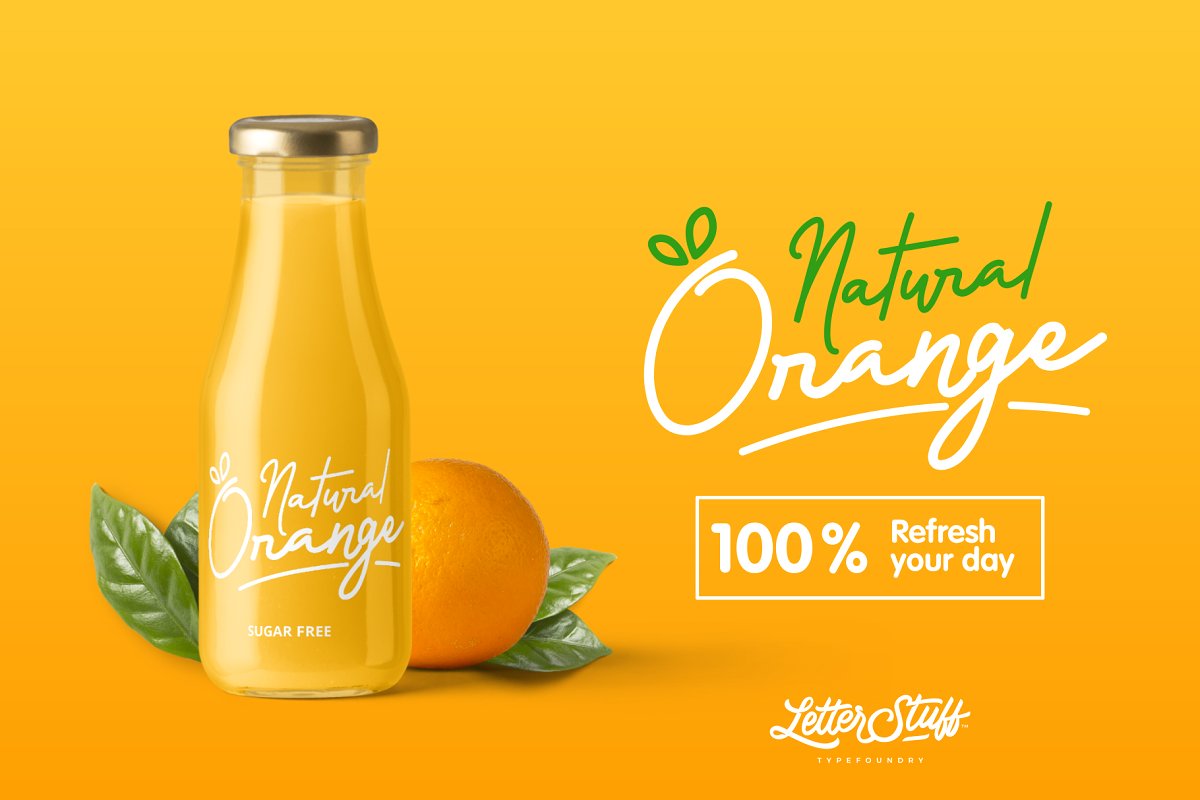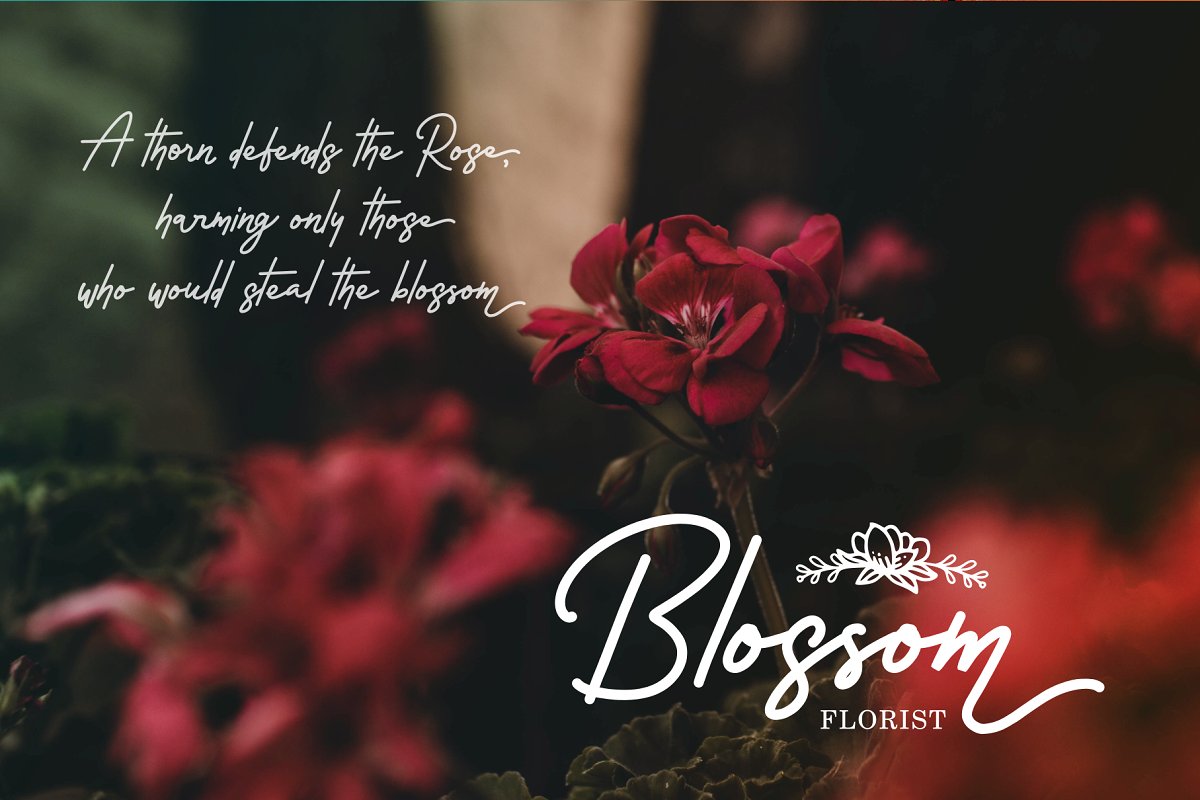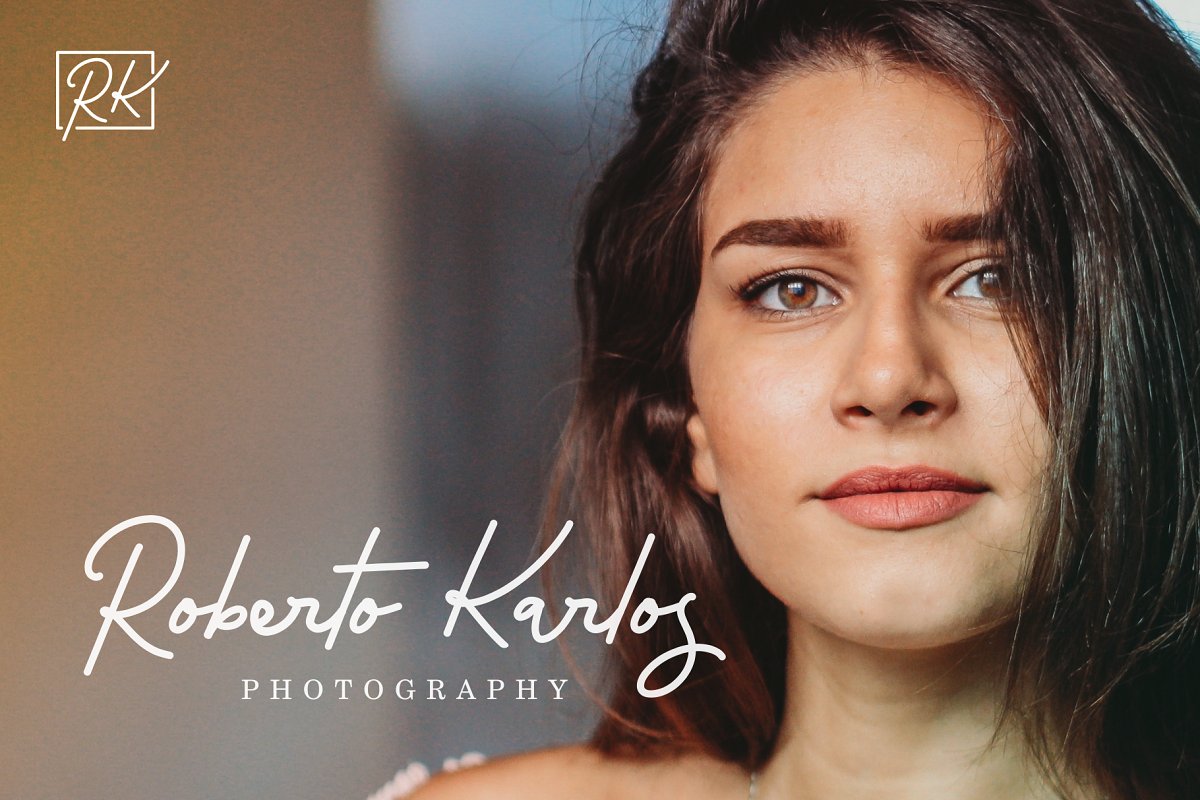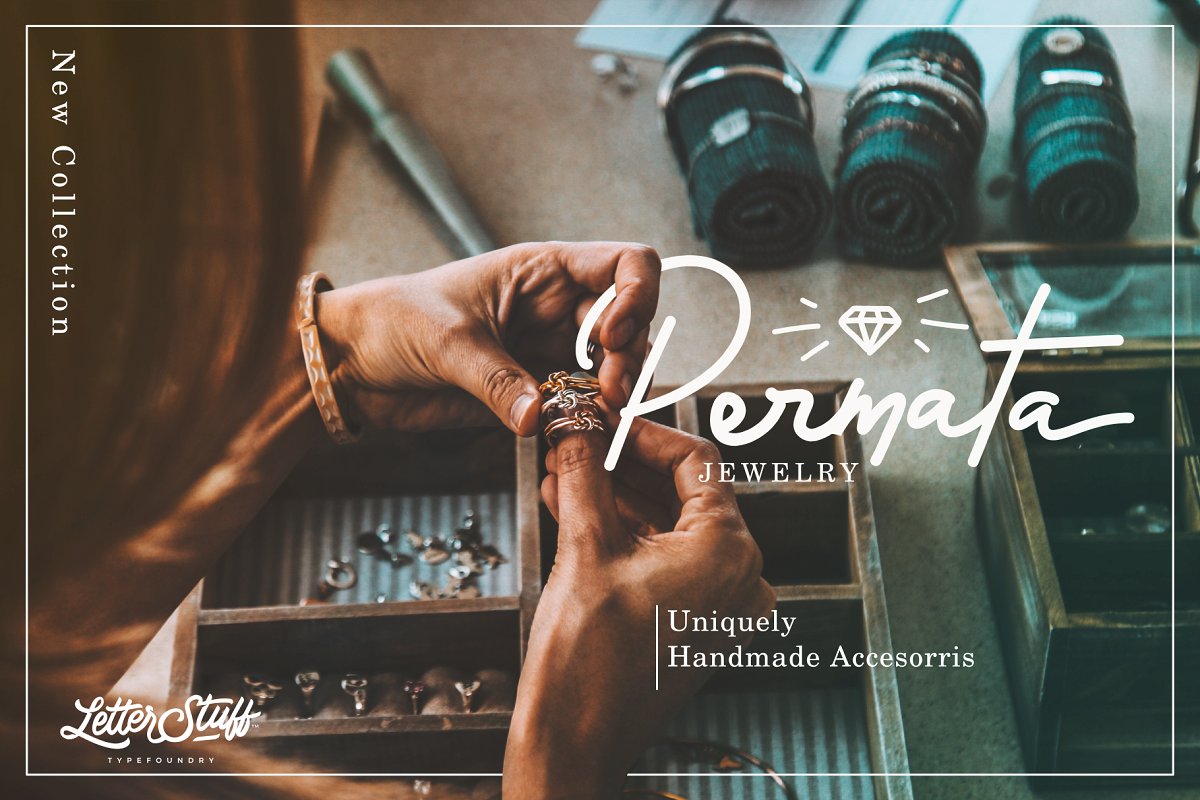
Rossela Signature Font
Hello world..!! A new modern & fresh script with a handwritten and script style make this font looks elegant, natural, stylish and perfect for any awesome projects that need handwriting taste. Introducing Rossela Font. It is designed and shared by LetterStuff Typefoundry. Rossela is new signature font with beauty and natural handwritten curve. Perfect for your design need such as poster, personal logo, invitation, and so on